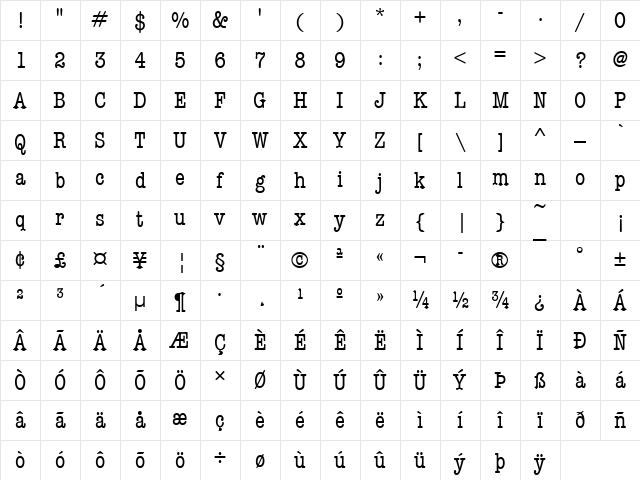
AmericanTypItcTMedCon Regular
Design Context for AmericanTypItcTMedCon
AmericanTypItcTMedCon is a composed and adaptable typeface that performs quietly and consistently across a wide range of design contexts.
Pro Tip: Use AmericanTypItcTMedCon in both headline and body roles to test its range before committing to a single application.